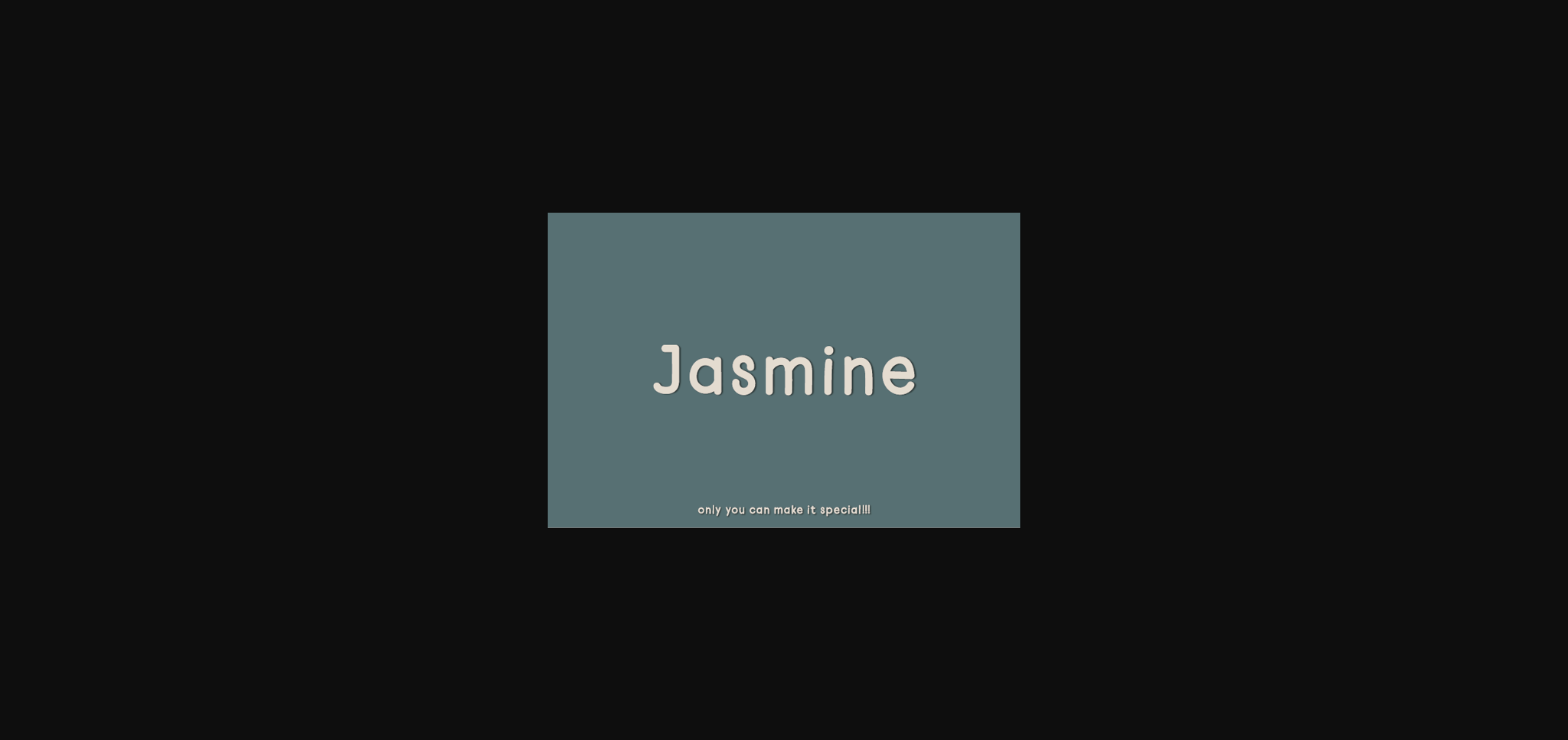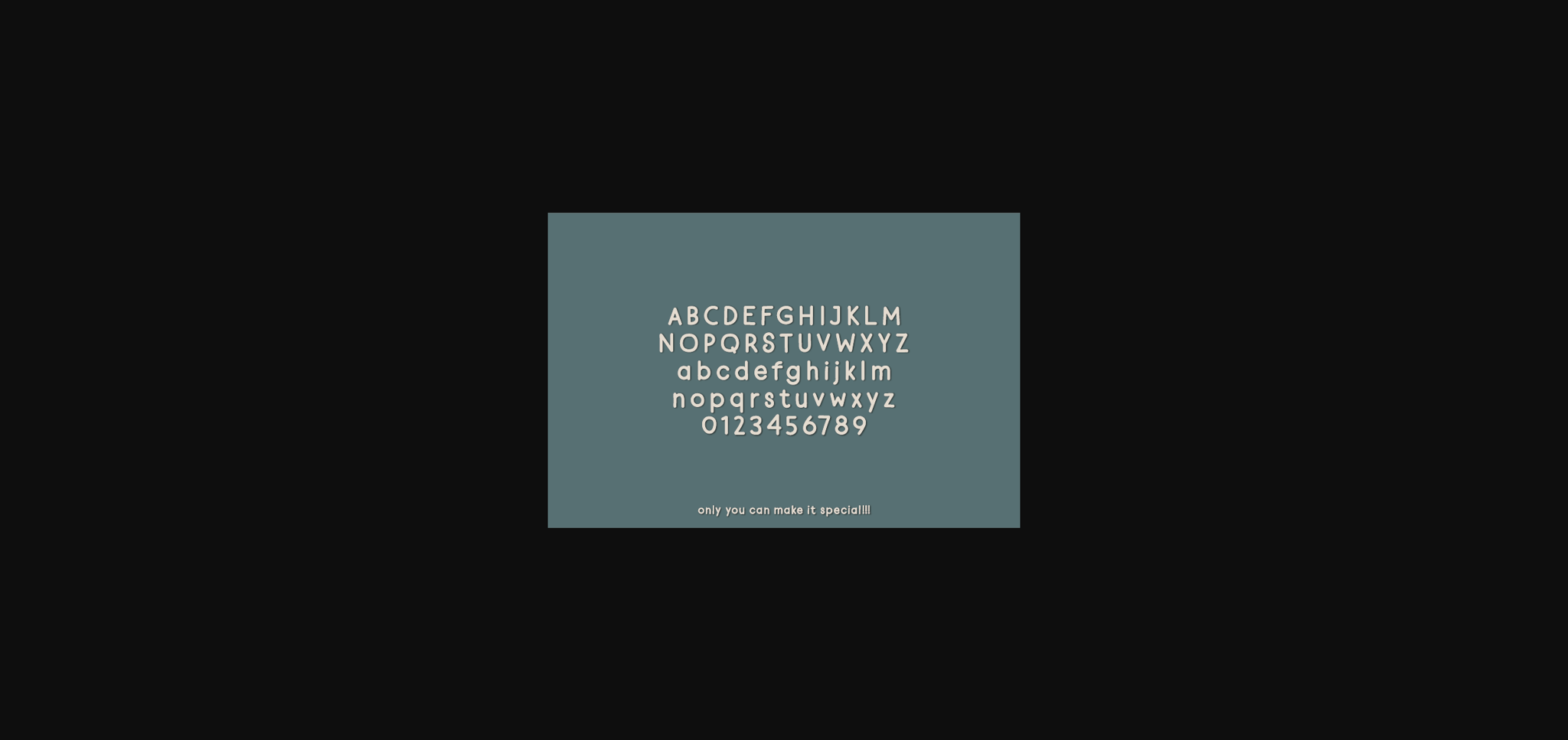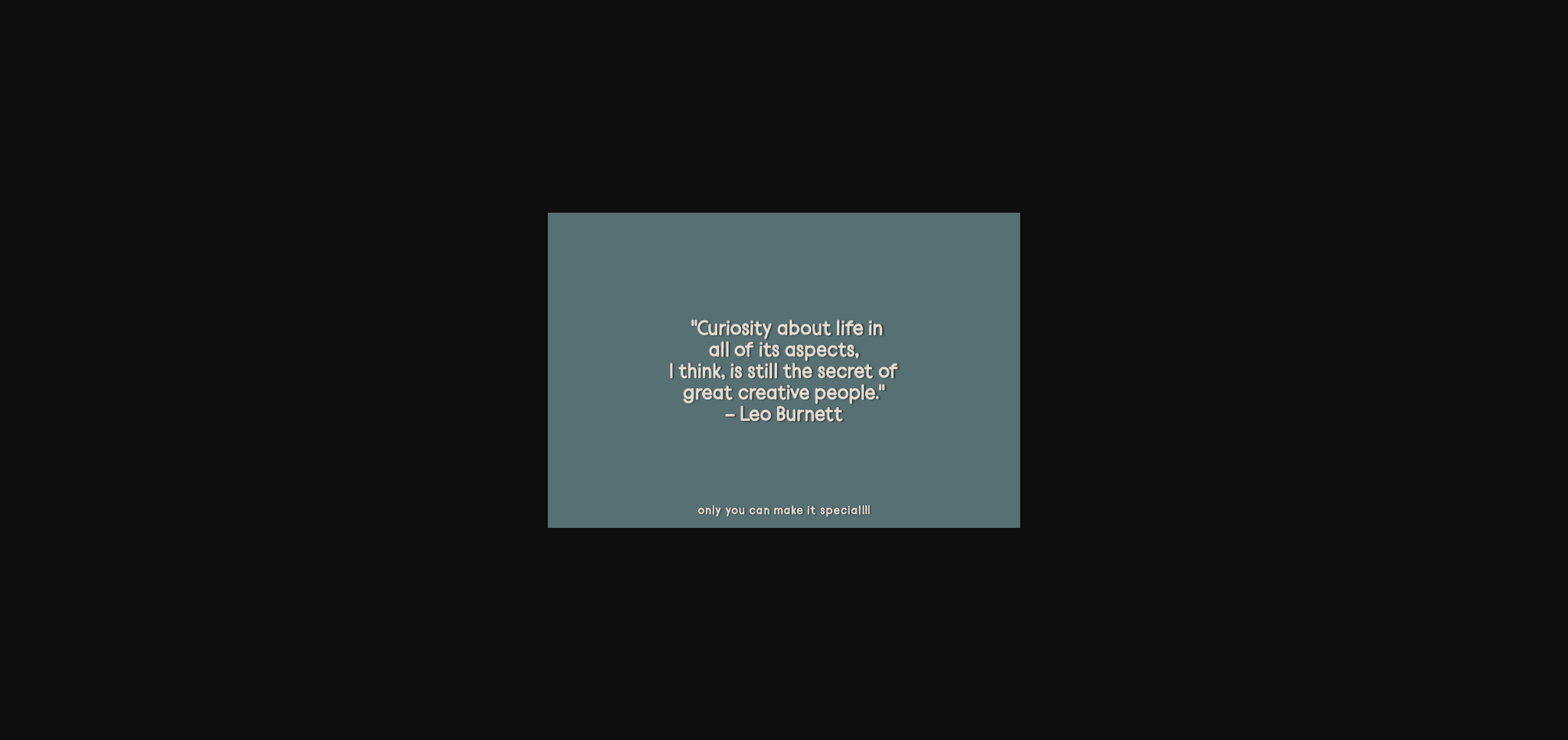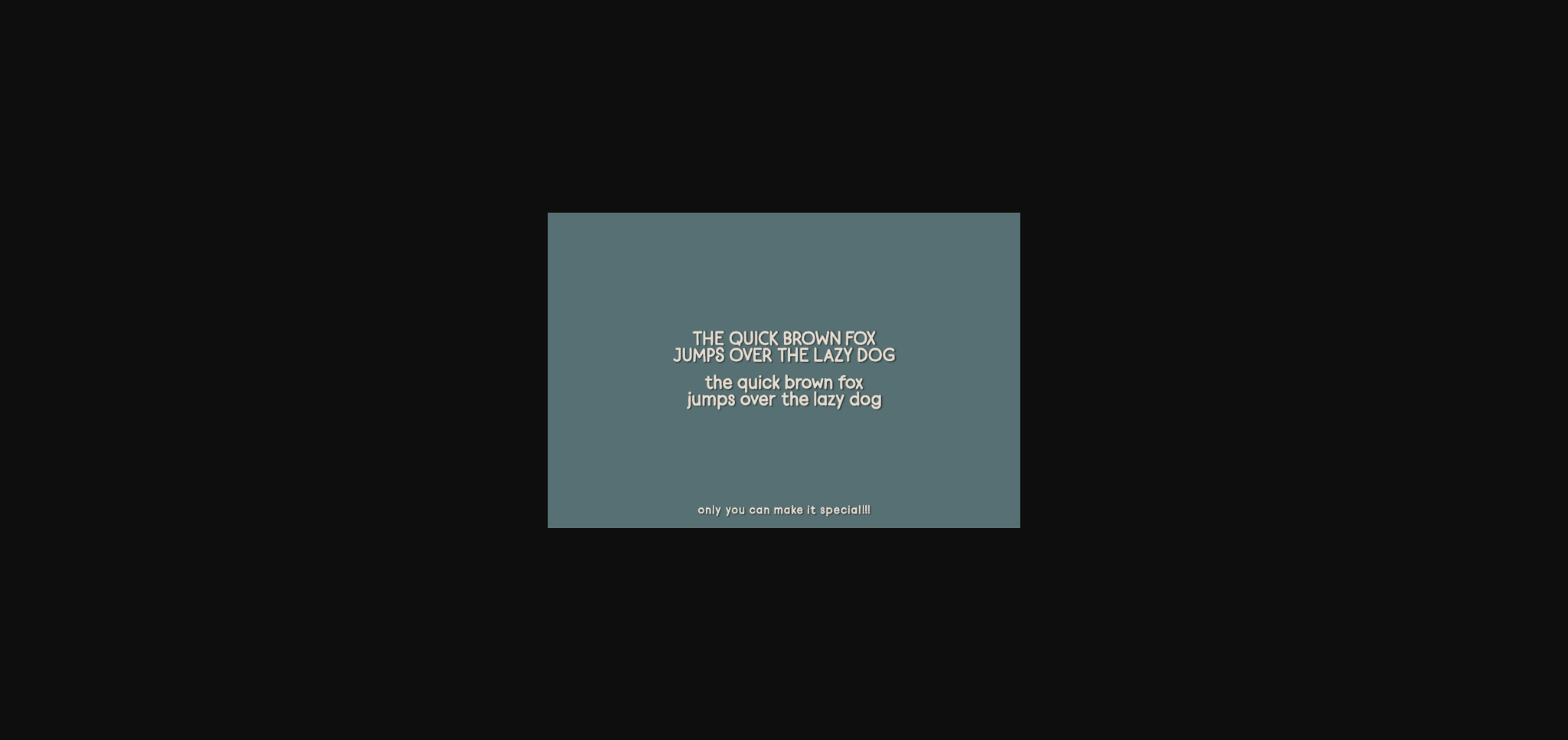
HomeSans Serif FontsJasmine Font Sans Serif Fonts Jasmine Font FacebookXPinterestWhatsApp 1 of 6 ... Jasmine Font Poster 2... Jasmine Font Poster 3... Jasmine Font Poster 4... Jasmine Font Poster 5... Jasmine Font Poster 6... About Jasmine Font Jasmine is a natural sans serif font made without changing a single node in each character’s indentation – this makes this font very interesting and unique. Perfect for quotes, notes, tees, and any product design. DOWNLOAD NOW People also explored Milk Font Beautiful Asthore Font Sherbet Shadow Font Awesome Monogram Font Deicho Font Keilyuan Font Simplify Font Donkey Talk Font Hello Farmhouse Font 381 0 TagsJasmineJasmine Font Previous articleCentaurus FontNext articleChalcedony Font LEAVE A REPLY Cancel reply Comment: Please enter your comment! Name:* Please enter your name here Email:* You have entered an incorrect email address! Please enter your email address here Website: Save my name, email, and website in this browser for the next time I comment. Personal Use Free Dacquoise Personal Use Free Read more about this font Potato Pancakes Personal Use Free Read more about this font BD Medled Personal Use Free Read more about this font Sweety Blue Personal Use Free Read more about this font BLOG Fonts That Capture the Spirit of New York City New York City is more than just a place—it’s an experience, a rhythm, a visual language... Using Fonts in Digital Marketing: Tips to Strengthen Your Brand Identity How to Install and Use Fonts on Windows, macOS, and Web Projects 5 Fonts That Will Dominate Design Trends in 2026